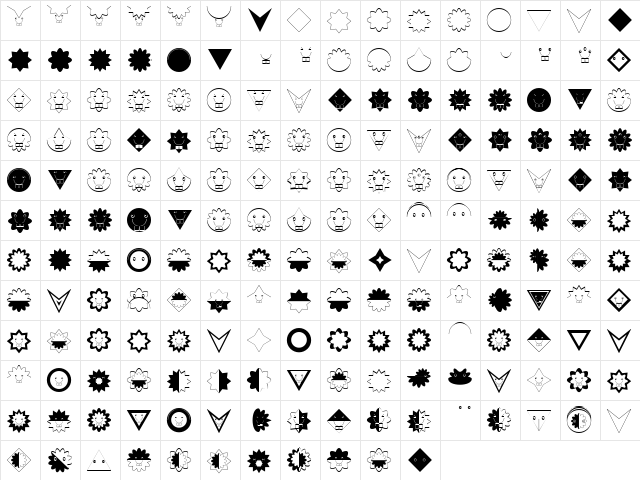
MangaMaterial Regular
Design Context for MangaMaterial Typeface
MangaMaterial is a composed and adaptable typeface that performs quietly and consistently across a wide range of design contexts.